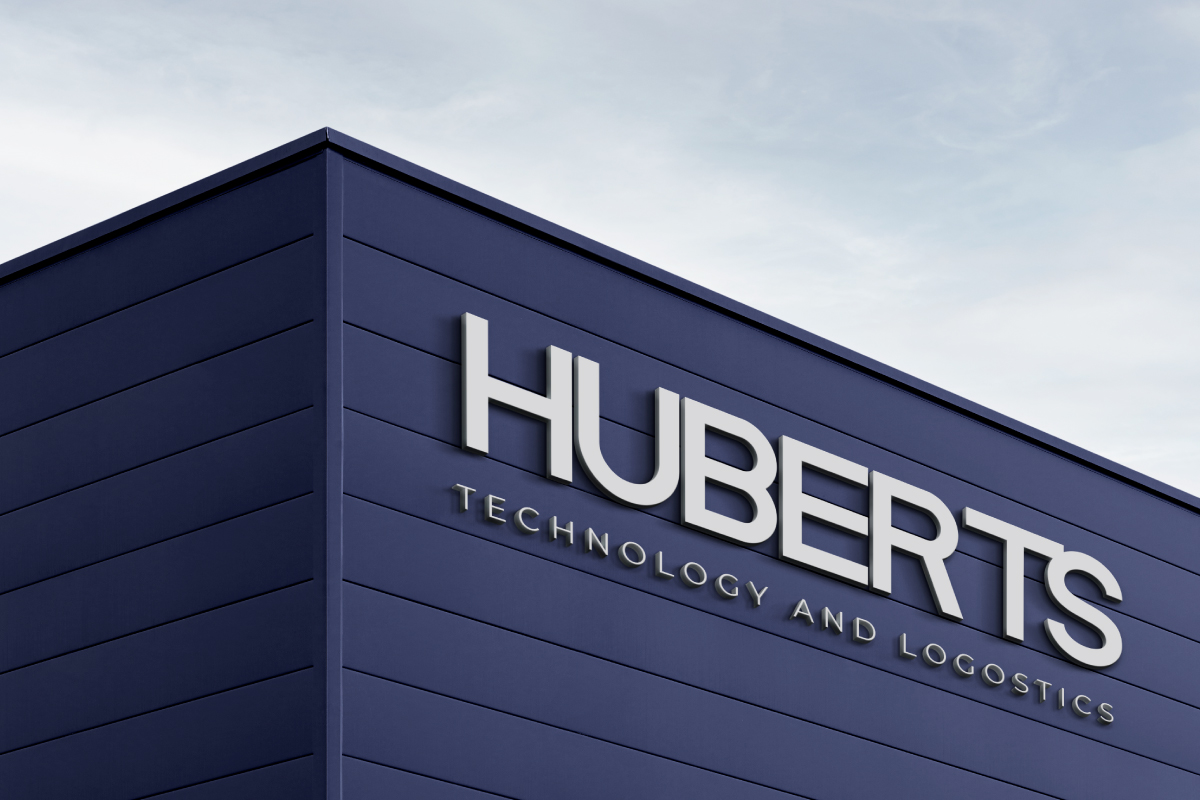
Boreland Sans Serif Font
This typeface is a sans serif display font family originally designed by NihStudio. It will be suitable for many businesses and industries including clothing, films, food, beverage, games, magazines, real estate, signage, technology, websites, writers, etc.